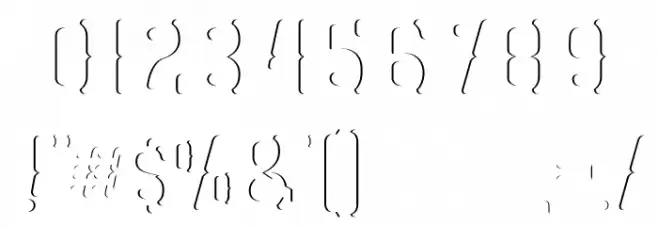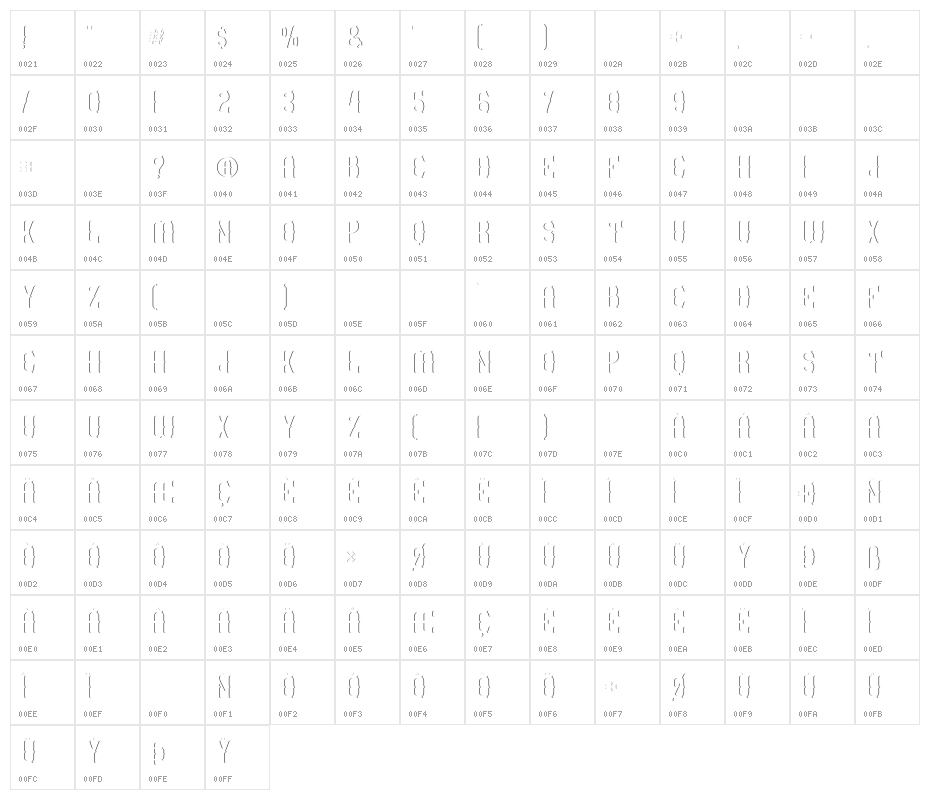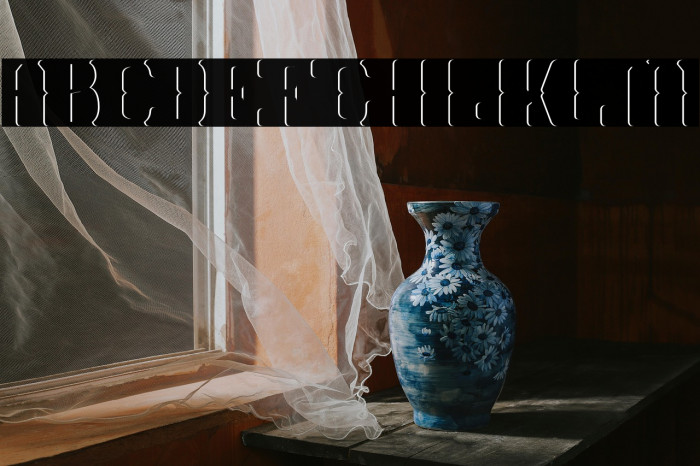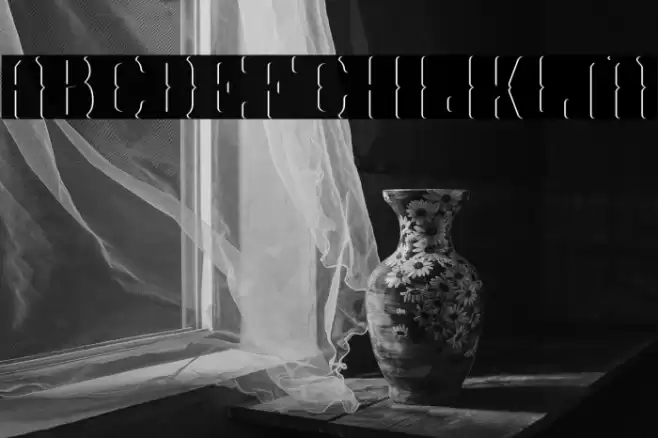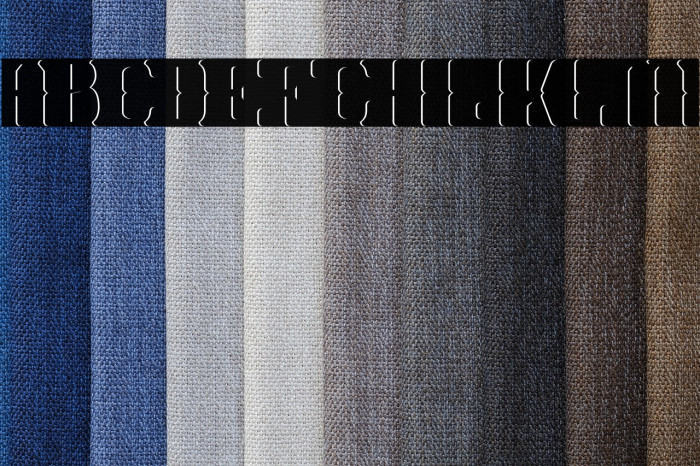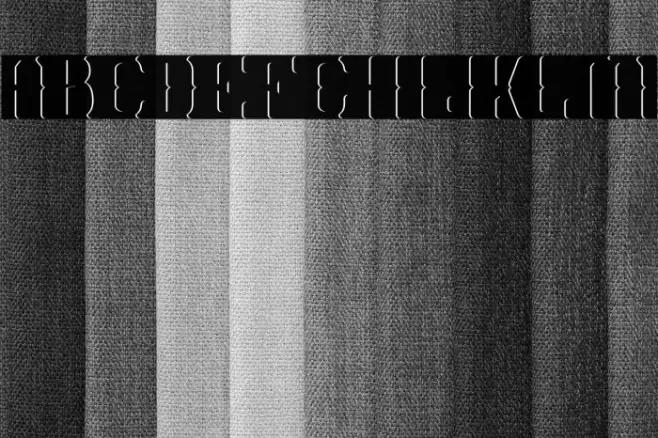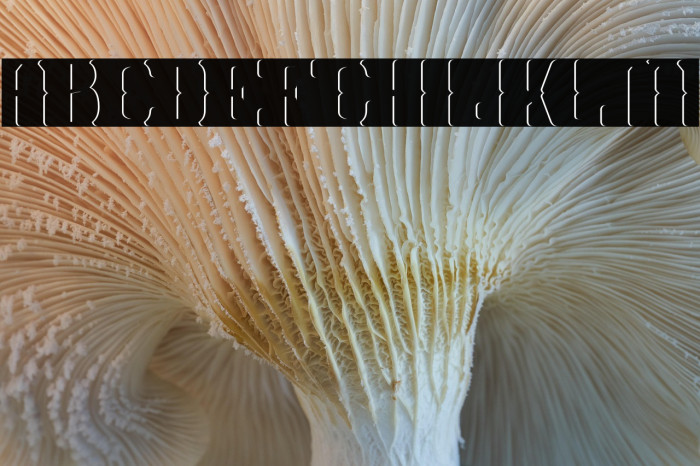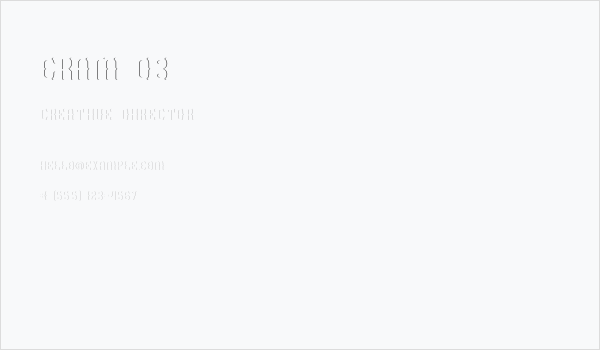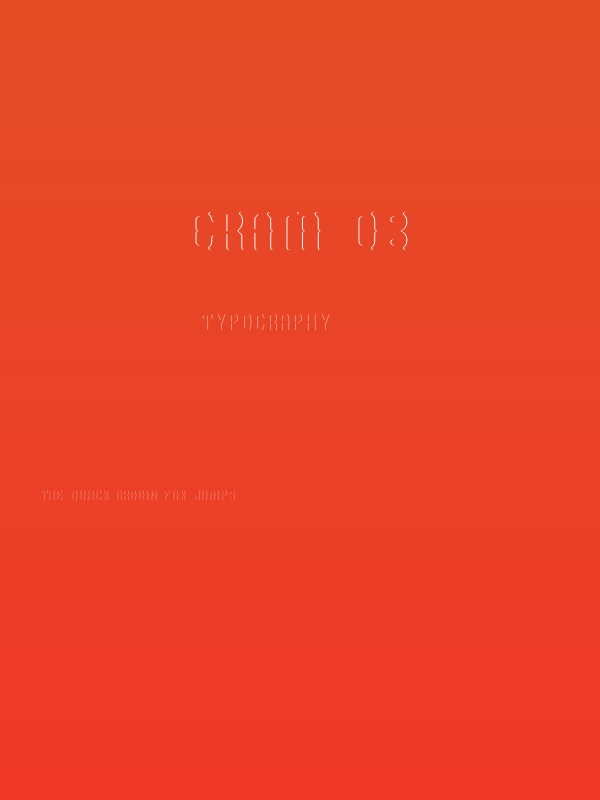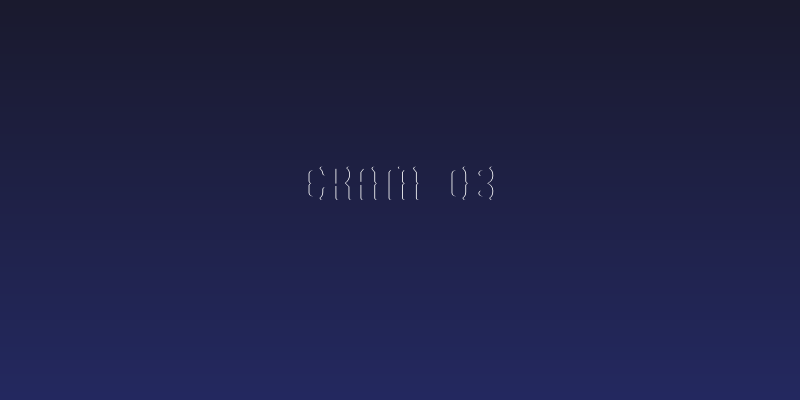
GRAM 03 Font
GRAM 03 Description
This font features a unique stencil-like design with distinct cut-out sections in each character, giving it a modern and industrial feel. The uppercase and lowercase letters share a consistent style, characterized by sharp angles and clean lines. The numbers and special characters maintain the same aesthetic, ensuring uniformity across all glyphs. The font's design is both bold and minimalist, making it suitable for eye-catching displays. Its geometric structure and precise spacing contribute to its contemporary appeal.
| Proposed Projects | Ideal for branding, posters, and signage where a modern industrial look is desired. |